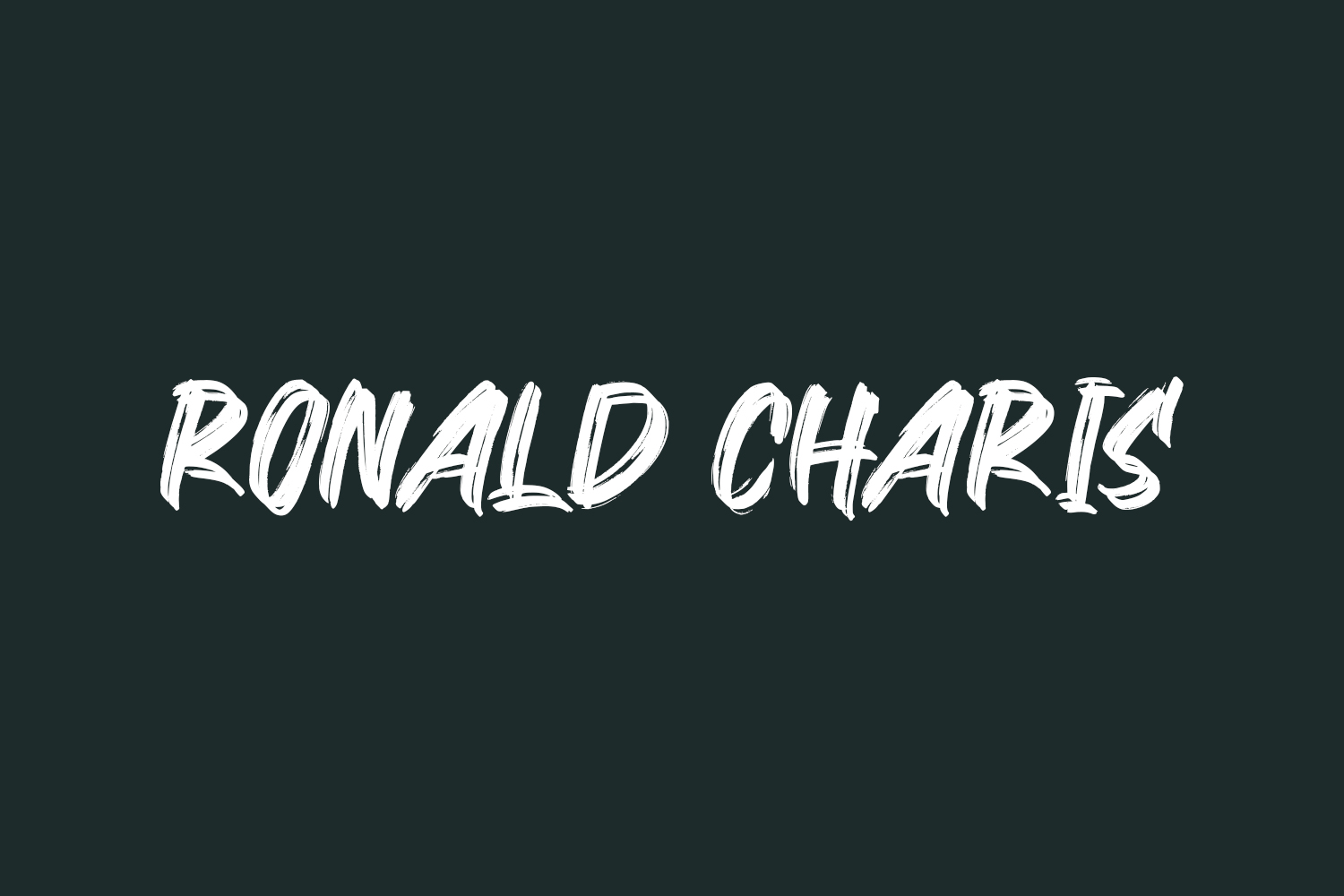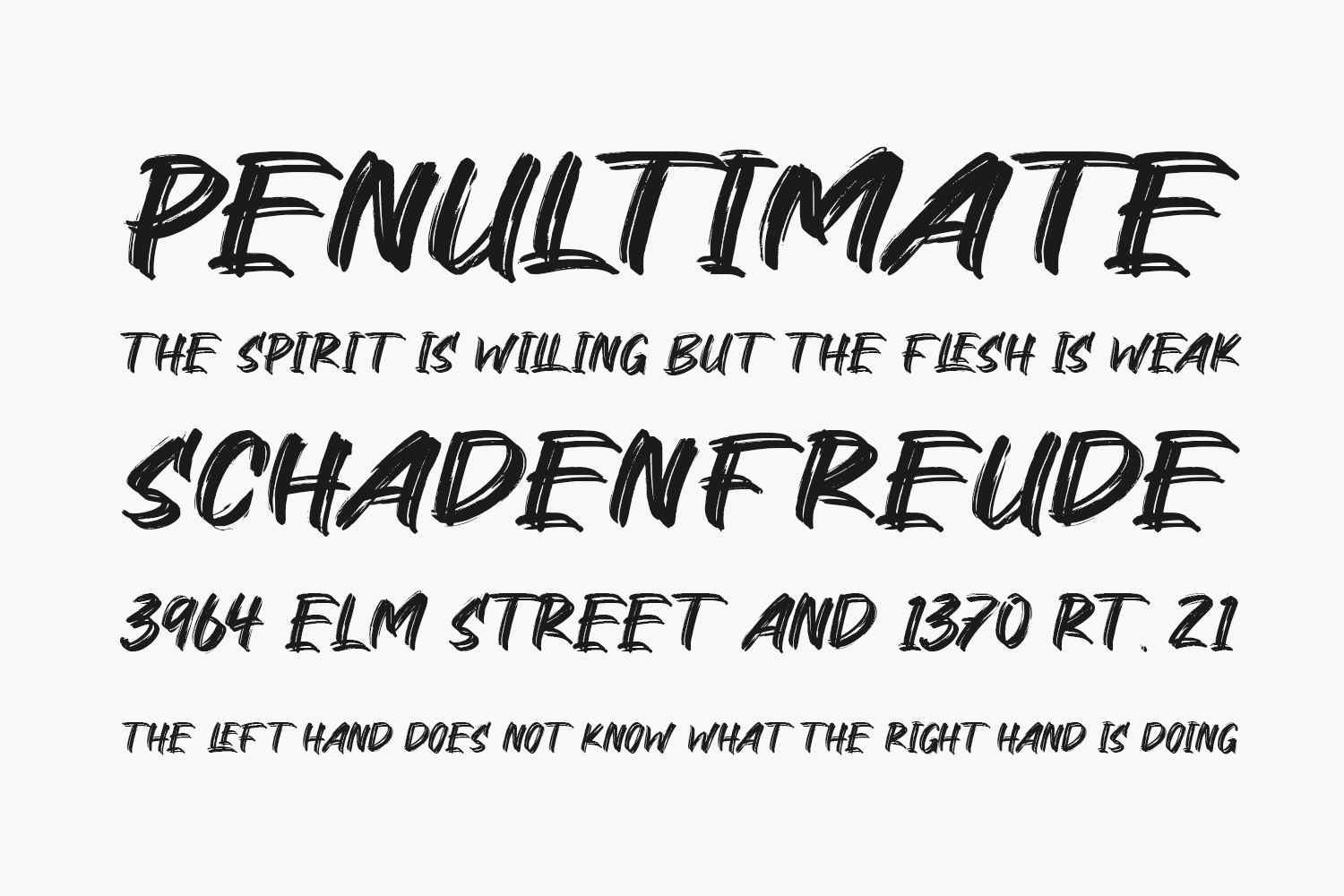
Ronald Charis Free Font is a cool and brushed display font. This font is suitable for designs such as t-shirts, sportswear, logos, advertisements, clothing, and more. Ronald Charis Free Font was designed by StringLabs and is free for personal use only. Please purchase the full version for commercial use.